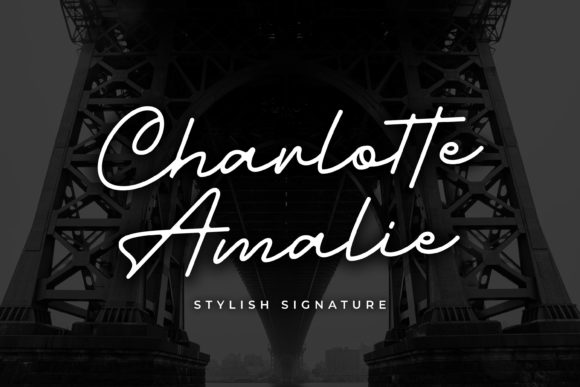
Step into a world of sophistication and timeless allure with Charlotte Amalie Font—a script typeface that captivates with its graceful curves and modern freshness. Experience the beauty of handwritten elegance, skillfully crafted to enhance your branding endeavors.
Charlotte Amalie embodies the essence of effortless style, seamlessly blending classic calligraphy with a contemporary twist. Its versatility knows no bounds, making it the perfect companion for an array of creative projects. From letterheads and titles that demand attention, to stationery that exudes charm, this font is your gateway to visual excellence.
With Charlotte Amalie as your trusted font, your designs will radiate an aura of sophistication that resonates with audiences. Its refined strokes and elegant flourishes will elevate your branding efforts to new heights, leaving an unforgettable impression that sets you apart.
Immerse yourself in the world of Charlotte Amalie Font and witness the transformation of your designs. Embrace the power of this meticulously crafted masterpiece and elevate your branding to an art form.